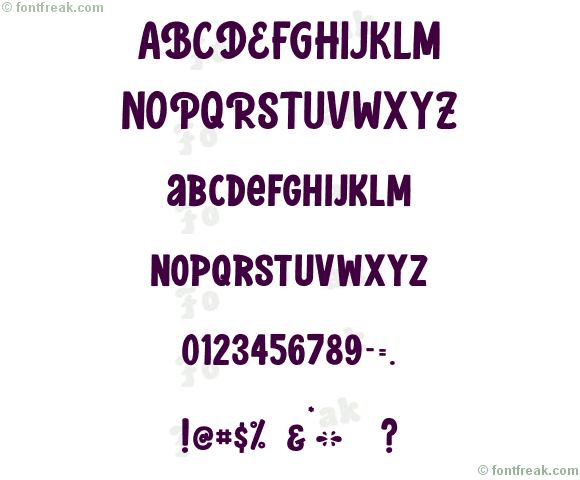
About BellandLambPersonalUse
The BellandLambPersonalUse font by Suthi Srisopha is a distinctive display typeface that captures attention with its playful and bold character. This font falls within the decorative category, combining unique visual elements that make it stand out in a crowded field. With a heavy stroke weight and moderate contrast, the letters convey a sense of strength and presence, ensuring readability even from a distance. The generous spacing between characters adds to its legibility while allowing for a modern aesthetic, making it suitable for various applications.
BellandLambPersonalUse is ideal for creative projects that require a touch of whimsy and flair. It works beautifully for wedding invitations, where its charming style can set a romantic tone. Additionally, this font is perfect for movie posters, capturing the essence of fun and excitement. Restaurant menus can also benefit from its unique flair, helping to create an inviting atmosphere for diners. Moreover, small business owners can leverage this font for branding purposes, adding a memorable touch to their marketing materials. Content creators will find it a great choice for social media graphics, where eye-catching visuals are essential.
What sets the BellandLambPersonalUse font apart is its ability to blend boldness with playful elegance. This unique combination makes it a versatile choice that can elevate any project, whether you’re designing an eye-catching poster or crafting a heartfelt invitation. Its distinct personality ensures your designs will not only stand out but also resonate with your audience.